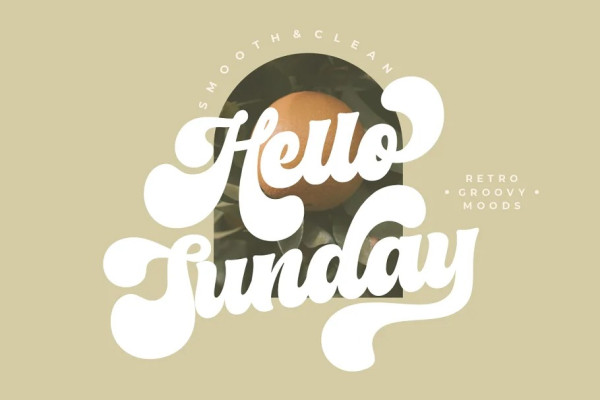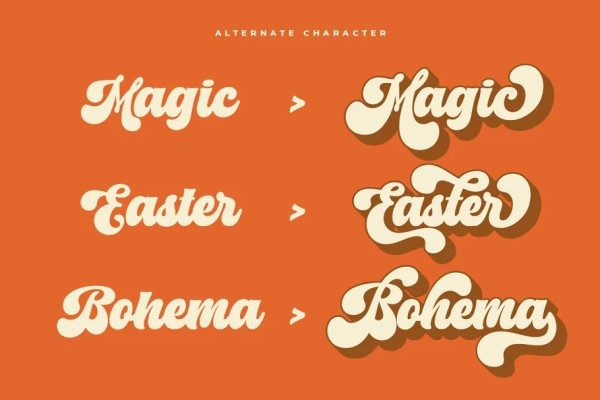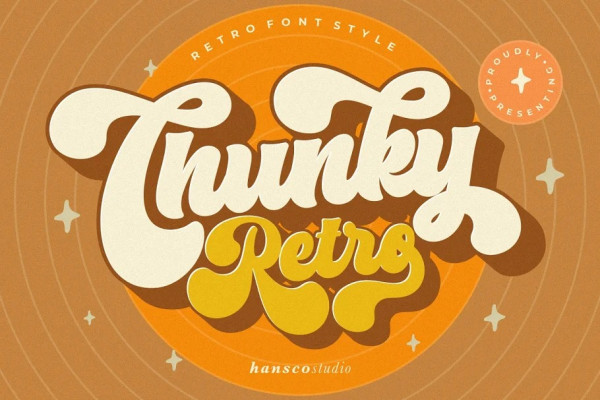
Chunky Retro Font
Chunky Retro Font,  is a modern, clean and smooth retro font style. This font comes with a unique shape where every corner is smoother and more rounded. You will also get extra shadow/outline fonts in this font pack to make your design projects perfect. Use this display font to add that special retro touch to any design idea you can think of!. Equipped with all complete characters ranging from uppercase letters, lowercase letters, numbers, punctuation marks and multi-lingual support, this font is ready to be used in any project. Very suitable for logotype, Stickers, Packaging design, Cricut Project, headlines, brand identity, t shirt or apparel industry, posters, magazines, books, YouTube, Instagram, websites, or any of your creative design projects.